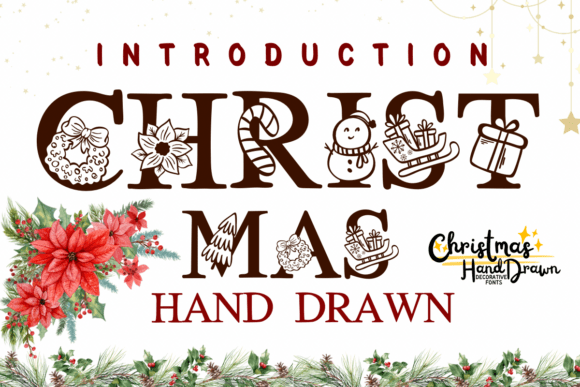
Christmas Hand Drawn Font: A Charming and Festive Decorative Font for the Holiday Season
The holiday season is upon us, and with it comes the need for festive and fun designs that capture the spirit of Christmas. If you’re looking for a unique and charming font to add a touch of holiday cheer to your designs, look no further than the Christmas Hand Drawn Font. This delightful font is perfect for creating Christmas cards, holiday branding, festive social media posts, decorative packaging, seasonal signs, and even coloring book pages.
What Makes Christmas Hand Drawn Font So Special?
Christmas Hand Drawn Font is a decorative font that features clean, all-caps letterforms with a twist. The negative space within the letters is filled with delicate, hand-drawn Christmas icons and doodles, such as snowmen, wreaths, candy canes, and gifts. This built-in decorative element makes it perfect for quick, high-impact seasonal design, eliminating the need for separate clipart.
- Unique and Charming Design: The font’s hand-drawn Christmas icons and doodles give it a rustic, crafty feel that’s perfect for the holiday season.
- Clean and Clear Structure: The all-caps letterforms provide a clear and easy-to-read structure, making it perfect for a variety of design applications.
- Built-in Decorative Element: The font’s internal drawings eliminate the need for separate clipart, making it a convenient and time-saving solution.
Design Applications for Christmas Hand Drawn Font
Christmas Hand Drawn Font is a versatile font that can be used for a variety of design applications, including:
- Christmas Cards: Add a personal touch to your holiday cards with this charming font.
- Holiday Branding: Use the font to create festive and fun branding for your business or organization.
- Festive Social Media Posts: Add a touch of holiday cheer to your social media posts with this delightful font.
- Decorative Packaging: Use the font to create eye-catching and festive packaging for your products.
- Seasonal Signs: Create festive and fun signs for your business or organization with this charming font.
- Coloring Book Pages: The font’s intricate internal drawings make it perfect for creating coloring book pages for kids.
Benefits of Using Christmas Hand Drawn Font
There are many benefits to using Christmas Hand Drawn Font for your holiday designs. Some of the benefits include:
- Time-Saving: The font’s built-in decorative element eliminates the need for separate clipart, saving you time and effort.
- Unique and Festive Designs: The font’s hand-drawn Christmas icons and doodles give your designs a unique and festive touch.
- Versatile: The font can be used for a variety of design applications, making it a great value.
Tips and Tricks for Using Christmas Hand Drawn Font
Here are a few tips and tricks for using Christmas Hand Drawn Font:
- Experiment with Different Colors: Try out different colors and combinations to find the perfect look for your design.
- Use it with Other Fonts: Combine Christmas Hand Drawn Font with other fonts to create a unique and interesting look.
- Pay Attention to Legibility: Make sure to adjust the font size and style to ensure that your text is legible.
Christmas Hand Drawn Font is a charming and festive decorative font that’s perfect for the holiday season. With its unique and hand-drawn design, clean structure, and built-in decorative element, it’s the perfect solution for any project needing a rustic, crafty, and joyfully festive touch. Whether you’re creating Christmas cards, holiday branding, festive social media posts, or decorative packaging, this font is sure to bring the heartwarming, homemade spirit of the holidays to life.